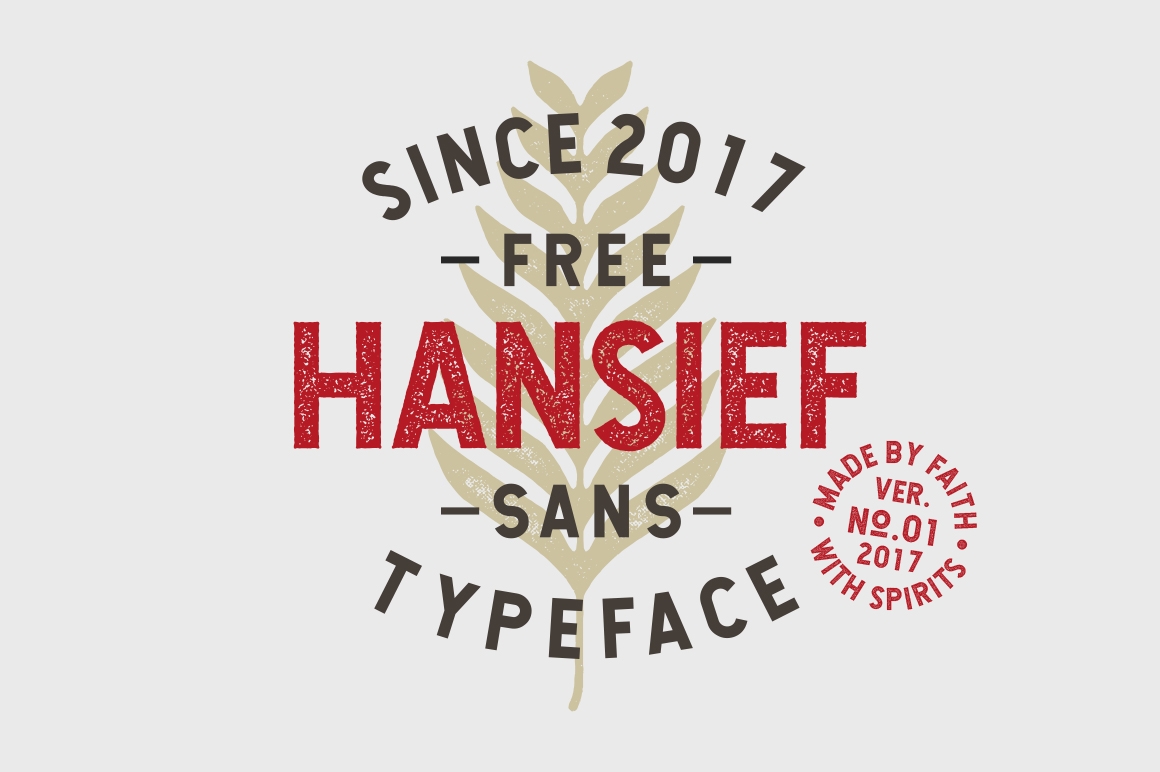
Hansief
Hansief Typeface is bold Sans Serif in simple modern-vintage shape. Perfect for any display usage such as t-shirt design, logo design, poster, etc. Comes with 2 styles : Regular and Rough.